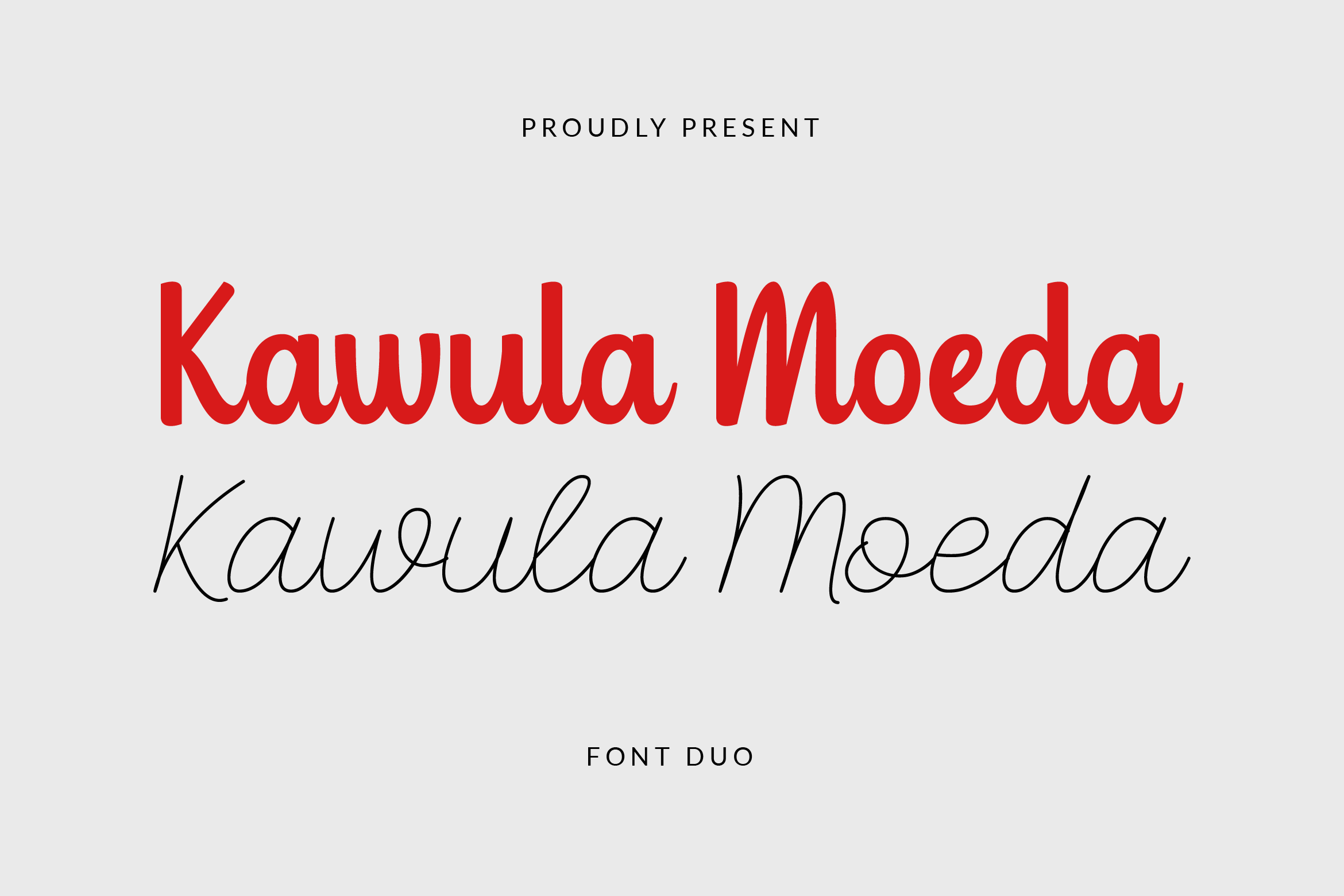
Kawula Moeda Font
About Kawula Moeda
Kawula Moeda is a graceful and charming script font. It has beautiful and well balanced characters and as a result, it matches a wide pool of designs.